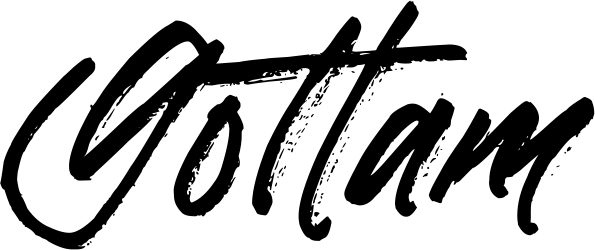
Gottam Font
What would draw any attention to this script font is the dirty and speckled design of its inky brush style, to inspires many audiences to pick out and carry on reading.
Here, Gottam arouses within easy reach to write more creatively, in addition, its animated, friendly, and playful sense is fine for assembling admirable layouts in designing many book covers, posters, movie titles, apparel, and other displays.